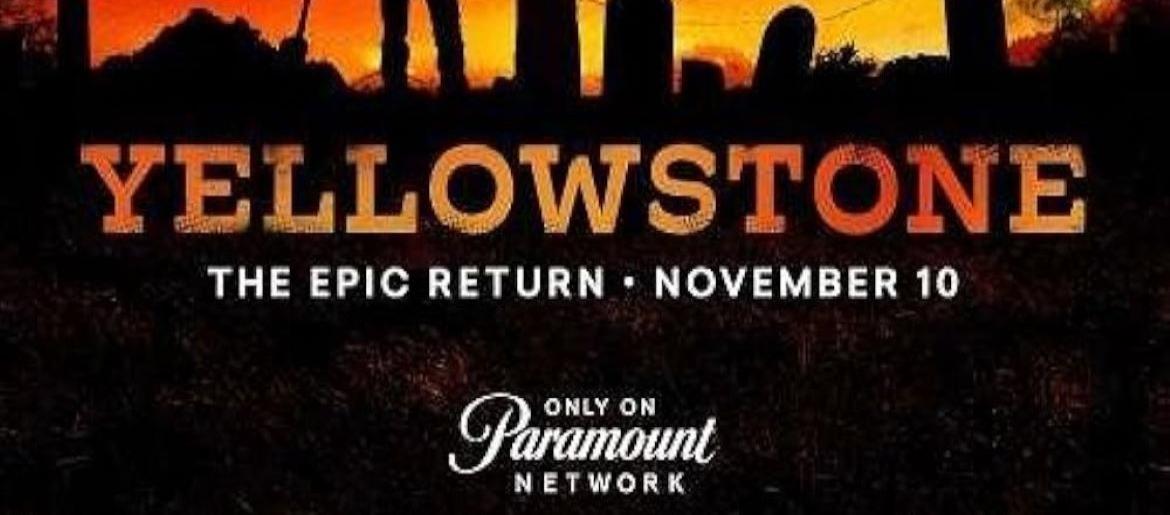
Yellowstone Font
The Yellowstone font carries the bold, weathered style that perfectly matches the gritty Western atmosphere of the series. Its strong, rustic lettering evokes wide-open landscapes, rugged ranch life, and the enduring strength at the heart of frontier storytelling. This typeface works beautifully for designs that need a commanding, outdoorsy feel—whether you’re creating ranch branding, adventure-themed graphics, or Western-inspired posters. Its sturdy character brings instant authenticity and rugged charm to any project.
About Yellowstone
Yellowstone is a popular drama series that premiered in 2018 on Paramount Network. Led by Kevin Costner, the story follows the Dutton family as they defend their vast Montana ranch from constant threats, including land developers, political tensions, and rival groups seeking control. The show blends family drama with action, showcasing the harsh realities and moral complexities of protecting a legacy in the modern American West. Its sweeping scenery, intense conflicts, and powerful performances have made Yellowstone a defining series for fans of contemporary Western storytelling.